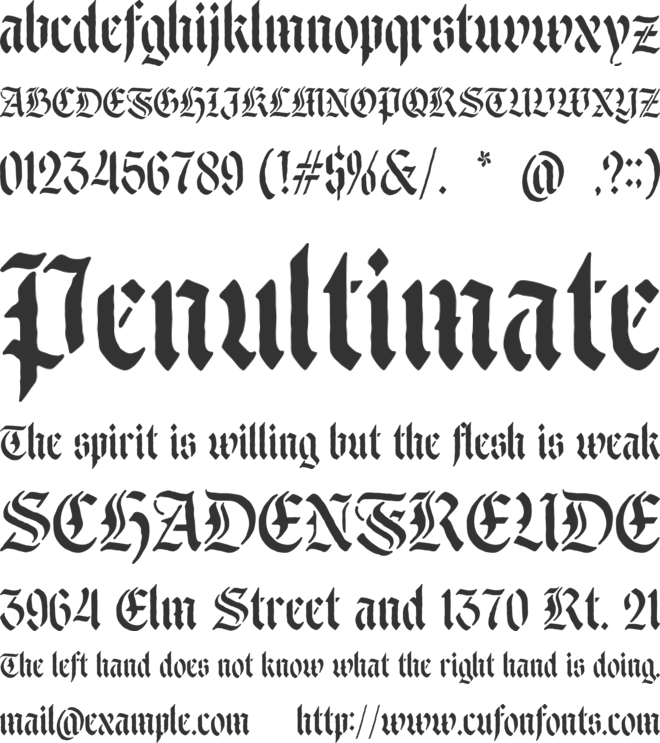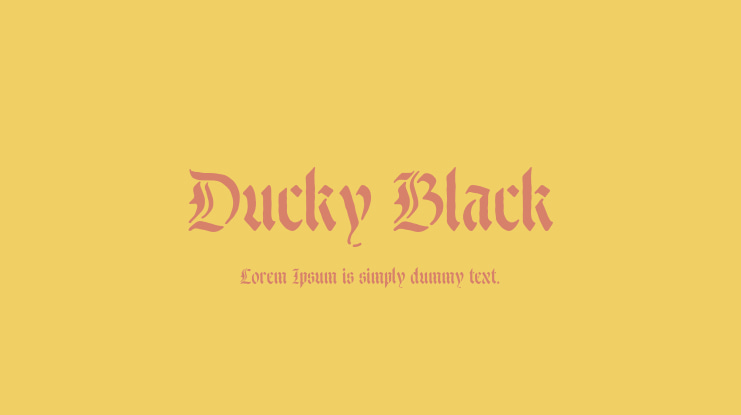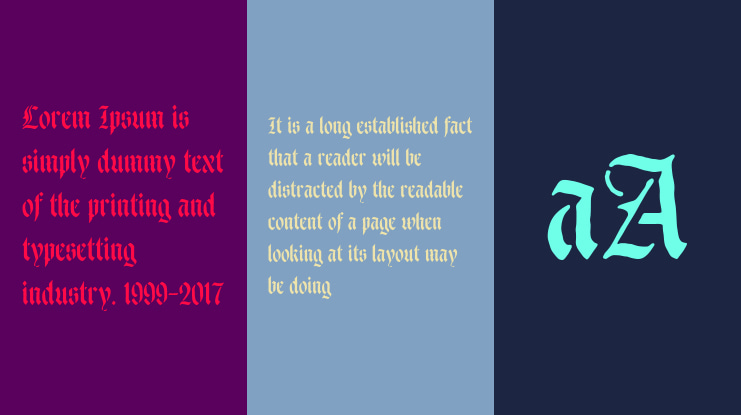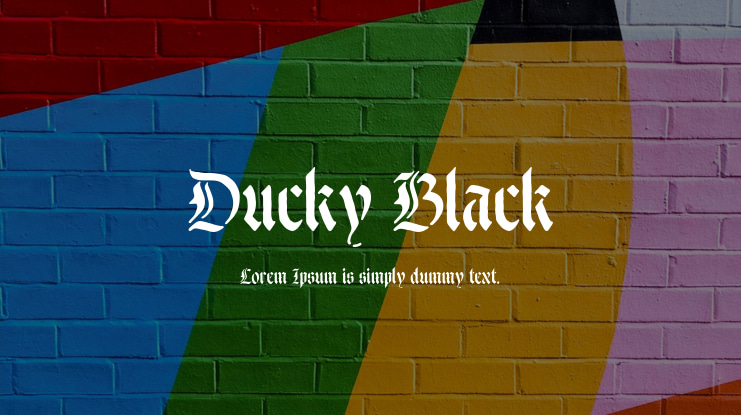
Ducky Black Font
Kana Widana
Ducky Black – A Vintage Blackletter Stencil Typeface
Step into a world of bold gothic elegance with Ducky Black, a meticulously crafted Blackletter Vintage Stencil Typeface that merges the timeless beauty of traditional blackletter with the practicality of stencil design. This typeface is perfect for artists, designers, and creatives who want to add a historic yet industrial feel to their projects.
With its sharp edges, dramatic strokes, and stencil-inspired cutouts, Ducky Black is ideal for branding, tattoos, packaging, posters, signage, apparel, and vintage-themed designs. Whether you’re crafting a medieval-style logo or a bold streetwear design, this typeface brings character, depth, and authenticity to your typography.